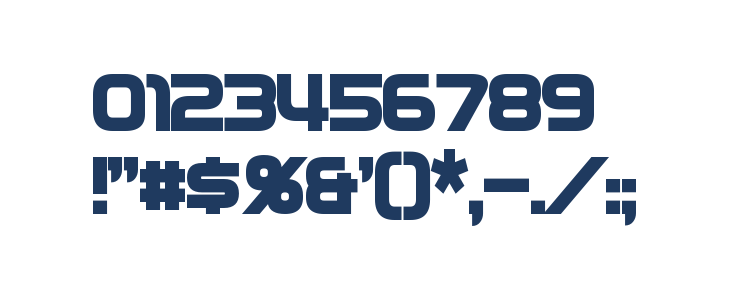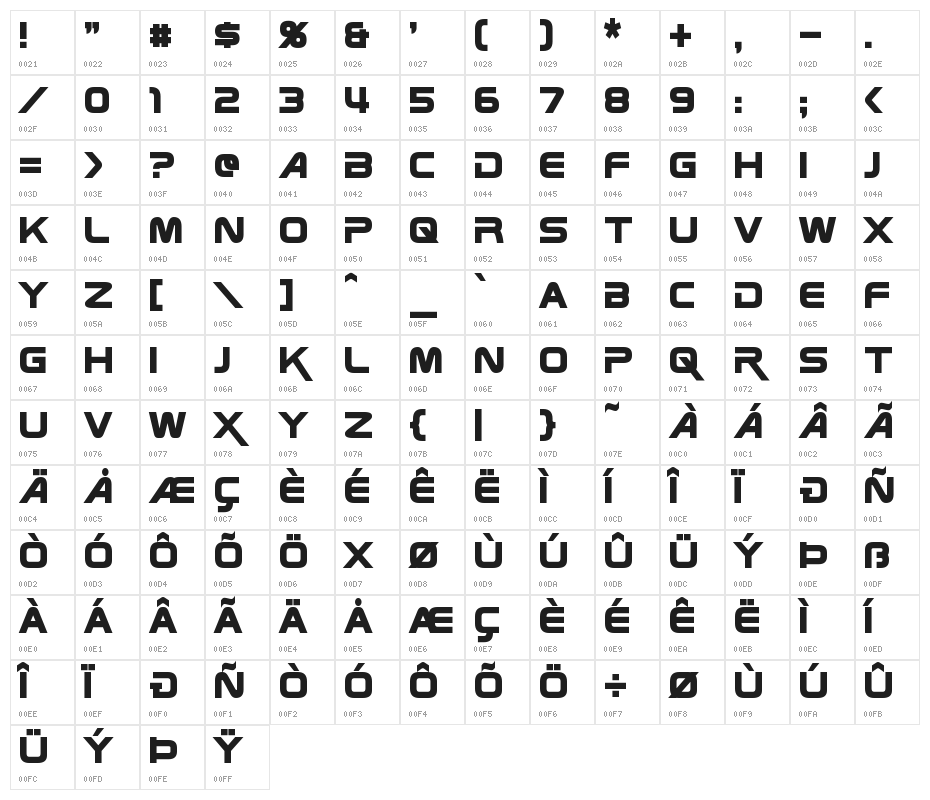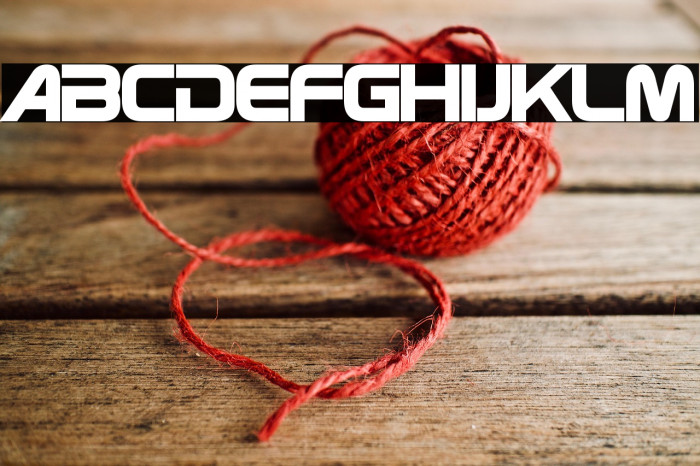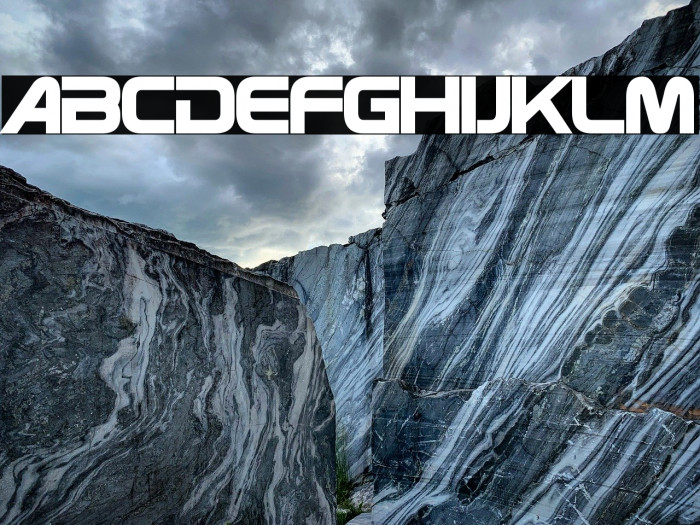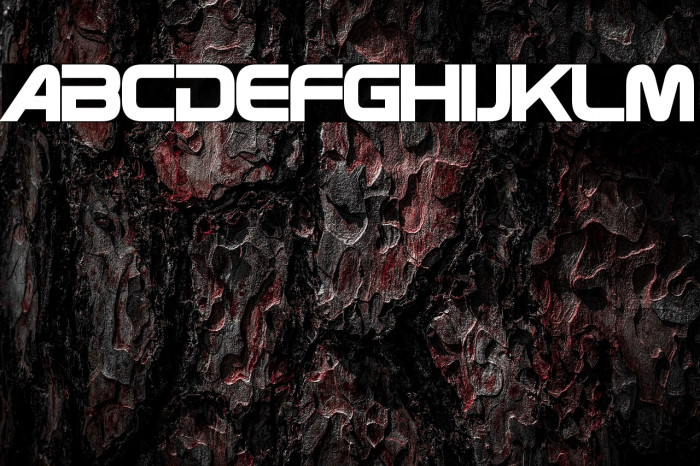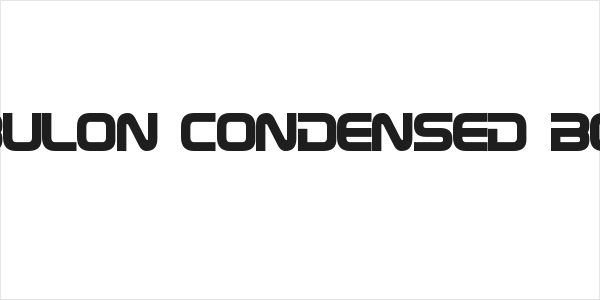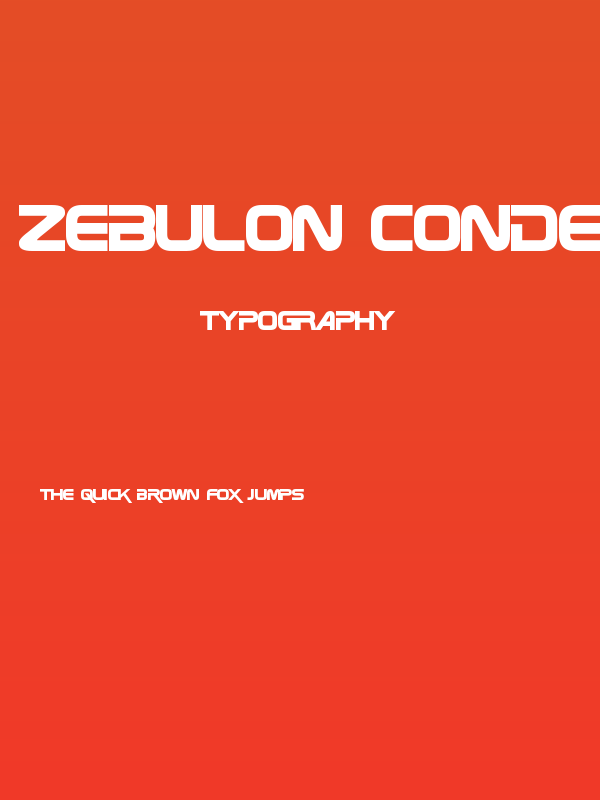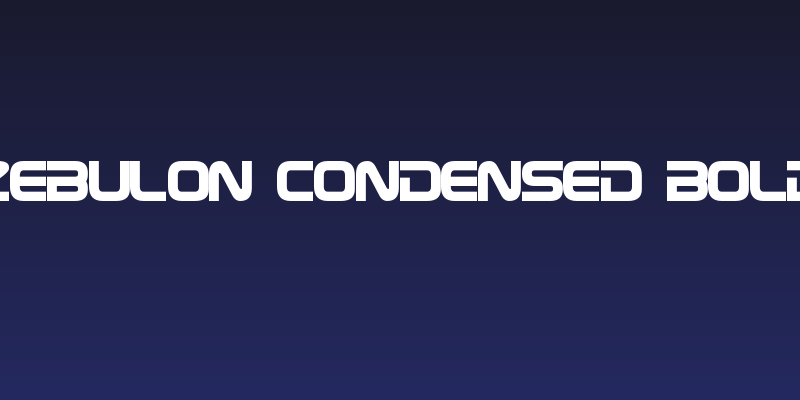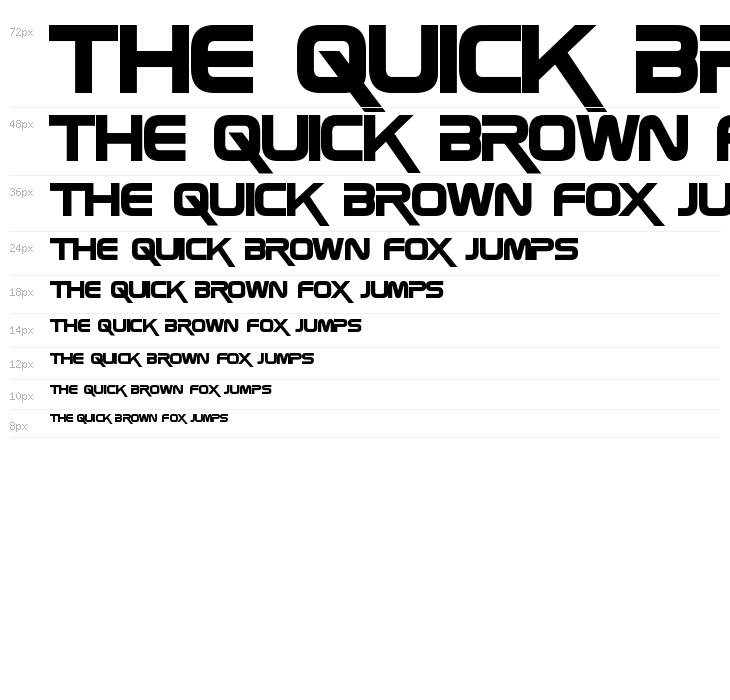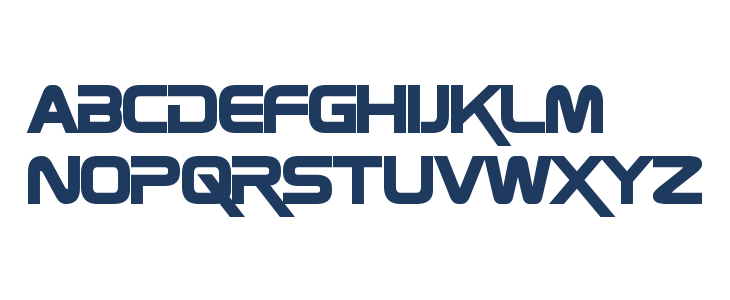
Zebulon Condensed Bold Font
Zebulon Condensed Bold Description
This font features a bold and condensed style with a futuristic and geometric design. The characters are constructed with sharp angles and clean lines, creating a modern and assertive appearance. The uppercase letters are uniform in height, while the lowercase letters maintain a consistent style that complements the uppercase. The numerals are distinct and align well with the overall aesthetic, providing clarity and impact. Special characters are designed to match the boldness and geometric nature of the font, ensuring a cohesive look across all text elements.
| Proposed Projects | Ideal for technology branding, sci-fi themed projects, video game titles, and modern advertising. |